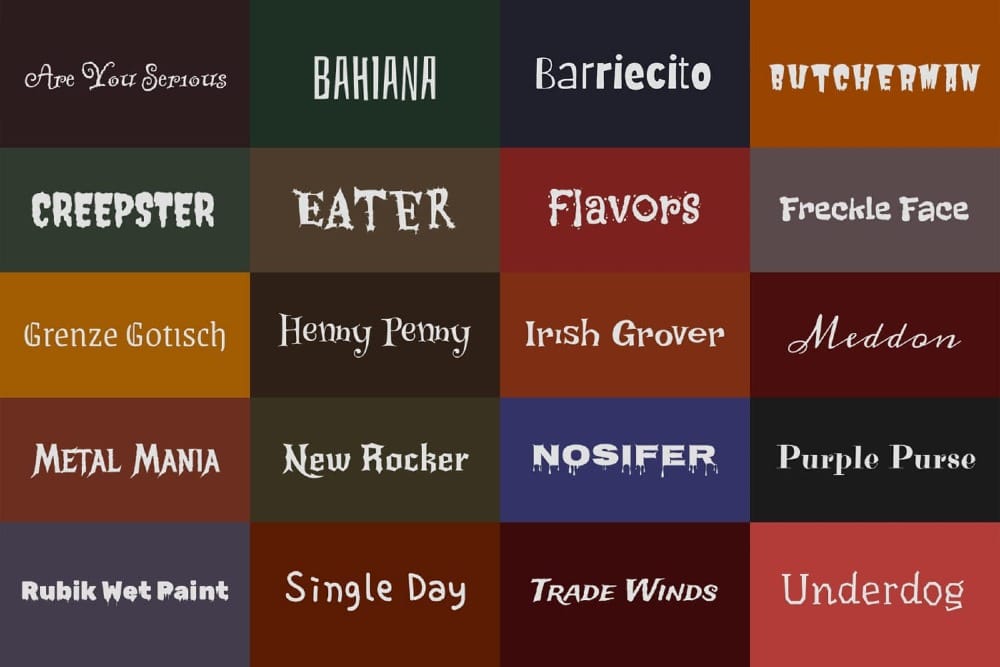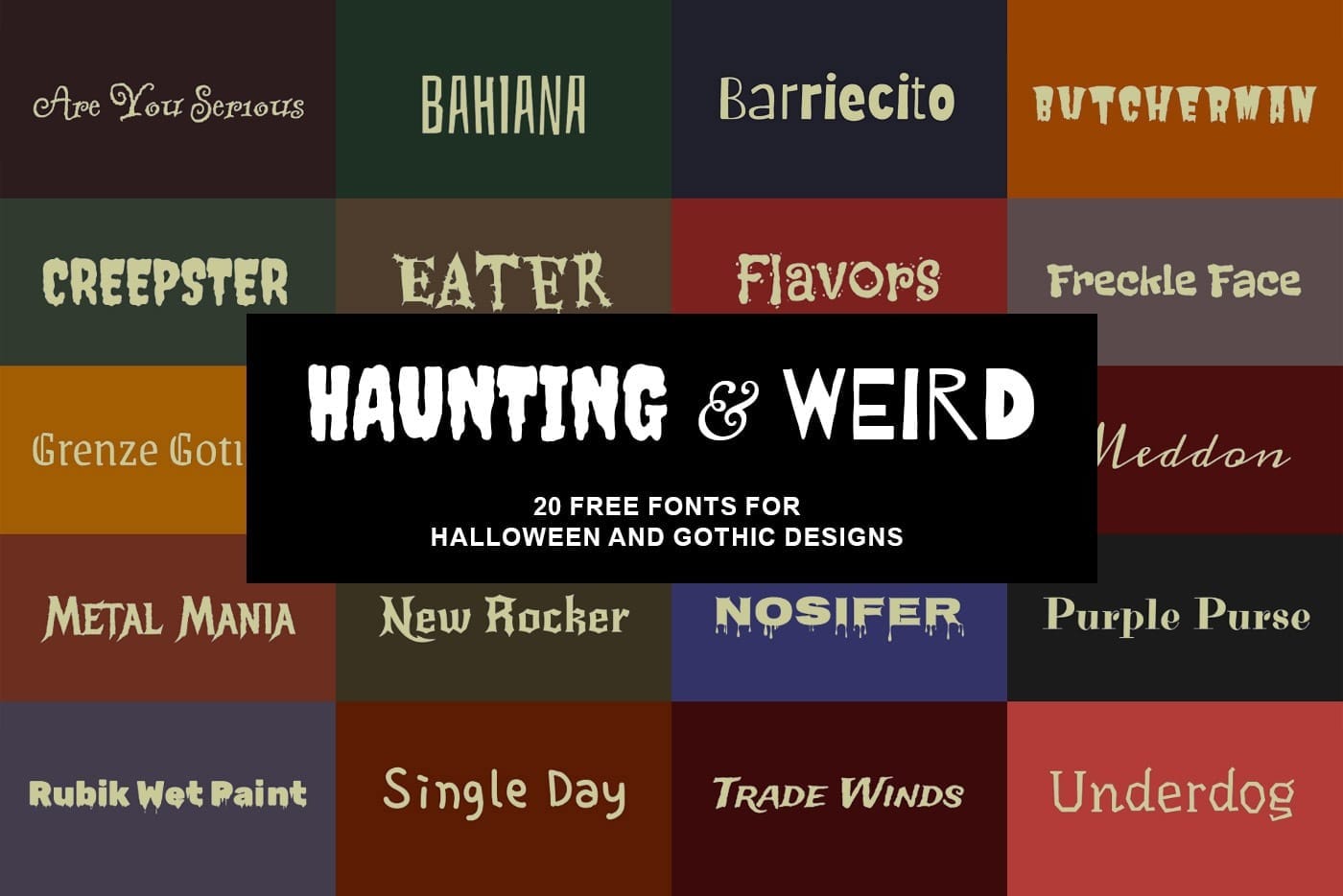
Haunting & Weird is a curated collection of 20 free fonts that celebrate the strange side of design. Blending eerie display styles with playful, characterful lettering, this selection captures the full spirit of Halloween — from creepy and dripping to odd and charming.
It’s perfect for posters, invitations, packaging, and digital projects that need a touch of dark personality.
Fonts included in this set:
• Are You Serious font
• Bahiana font
• Barriecito font
• Burcherman font
• Creepster font
• Eater font
• Flavors font
• Freclke Face font
• Grenze Gotisch font
• Henny Penny font
• Irish Grover font
• Meddon font
• Metal Mania font
• New Rocker font
• Nosifer font
• Purple Purse font
• Rubik Wet Paint font
• Single Day font
• Trade Winds font
• Uderdog font